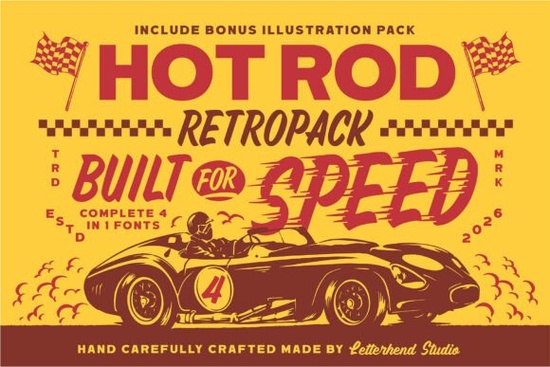
If you're looking for a bold, eye-catching font that brings energy and nostalgia to your designs, Hotrod Font is a great choice. It’s part of the Hotrod Retropack a display typeface collection inspired by vintage racing posters and classic garage signs from the mid-20th century. The style feels alive: thick strokes, sharp angles, and dynamic shapes give it a sense of motion, perfect for anything with a retro or automotive vibe.
What makes Hotrod Font stand out?
The letterforms in this font aren’t just stylish they’re built to grab attention. Whether you’re designing a poster for a car show, a t-shirt for a custom brand, or a social media graphic for a motorcycle event, its strong presence works well at large sizes. It doesn’t fade into the background it demands to be seen.
You’ll notice how each character has a hand-crafted feel, like it was painted on a diner wall or stamped onto a race banner. That authenticity adds warmth and personality, which digital fonts sometimes lack. It’s not just about looks; it’s about mood and storytelling.
Who should use Hotrod Font?
Designers who work with bold visuals will find it useful. Crafters making stickers, decals, or printable art can use it to add instant character. Print-on-demand sellers often need fonts that look striking without needing extra design tweaks this one delivers right away. Small businesses promoting events, brands, or merchandise related to cars, motorcycles, or vintage themes will also benefit.
It’s especially helpful if you’re working on projects that need a nostalgic touch but still feel modern. Think of it as a bridge between past and present classic in spirit, fresh in application.
How does it fit into other creative projects?
Because it's a display font, it works best in headlines, titles, and large text elements. Avoid using it for body copy it’s too expressive for long paragraphs. But when used correctly, it turns simple layouts into standout pieces.
Try pairing it with clean, neutral fonts for balance. For example, combine it with a simple sans-serif for subheadings or captions. This contrast helps the retro font shine while keeping the overall design readable.
- Use it for event posters, especially for car meets, bike rallies, or vintage-themed parties.
- Add it to t-shirts, mugs, or tote bags for a bold, handmade aesthetic.
- Include it in branding for auto shops, custom paint studios, or roadside diners.
- Use it in digital ads or social media banners where impact matters.